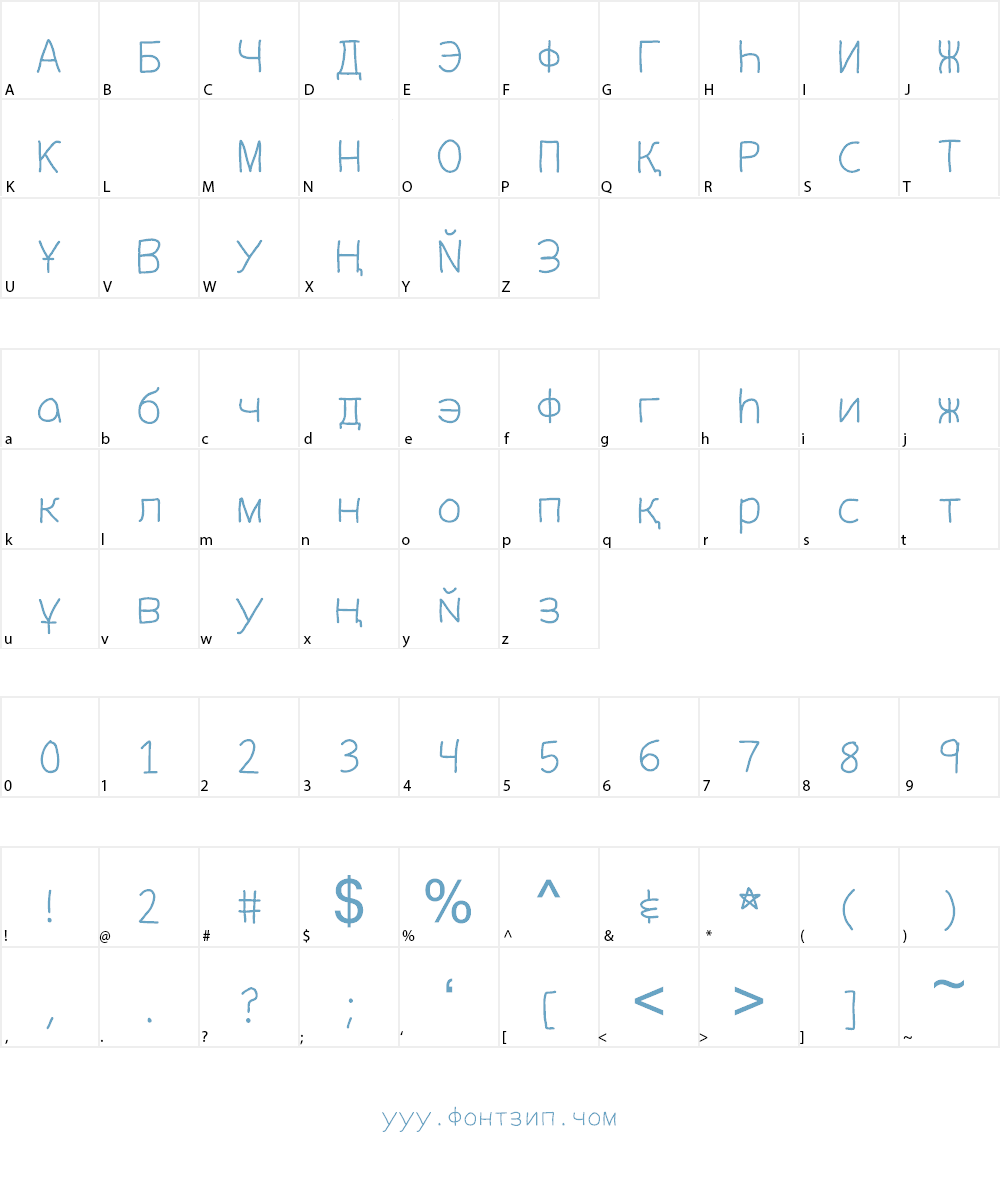
Otaku Cyrillic Alphabet (Алрабэтоң Сириликоң Отаку Alpabetong Sirilikong Otaku) is another conscript created by Akihiro Akagi to replace Bigkas Alphabet in Otakupotamia, he found out that Otaku Cyrillic is much easier to learn than Bigkas. Otaku Cyrillic was created from Kazakh Cyrillic hence to the extra letters added on the chart.